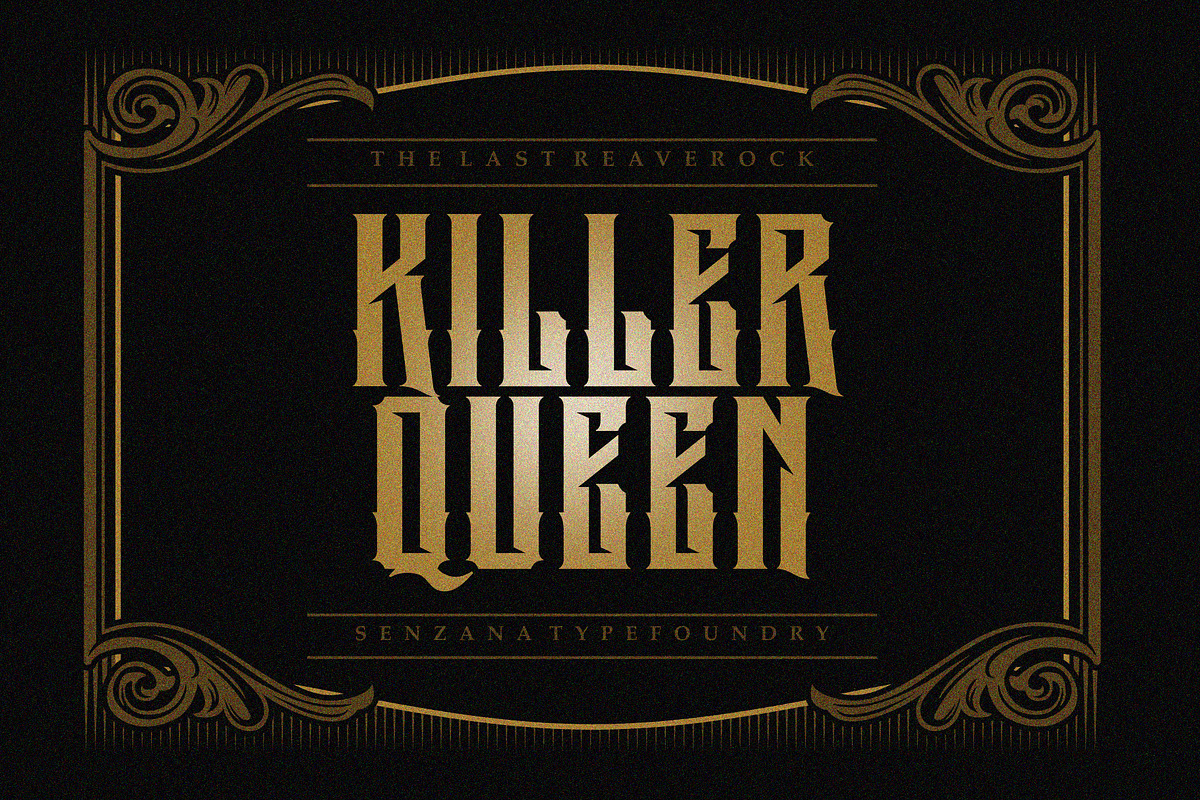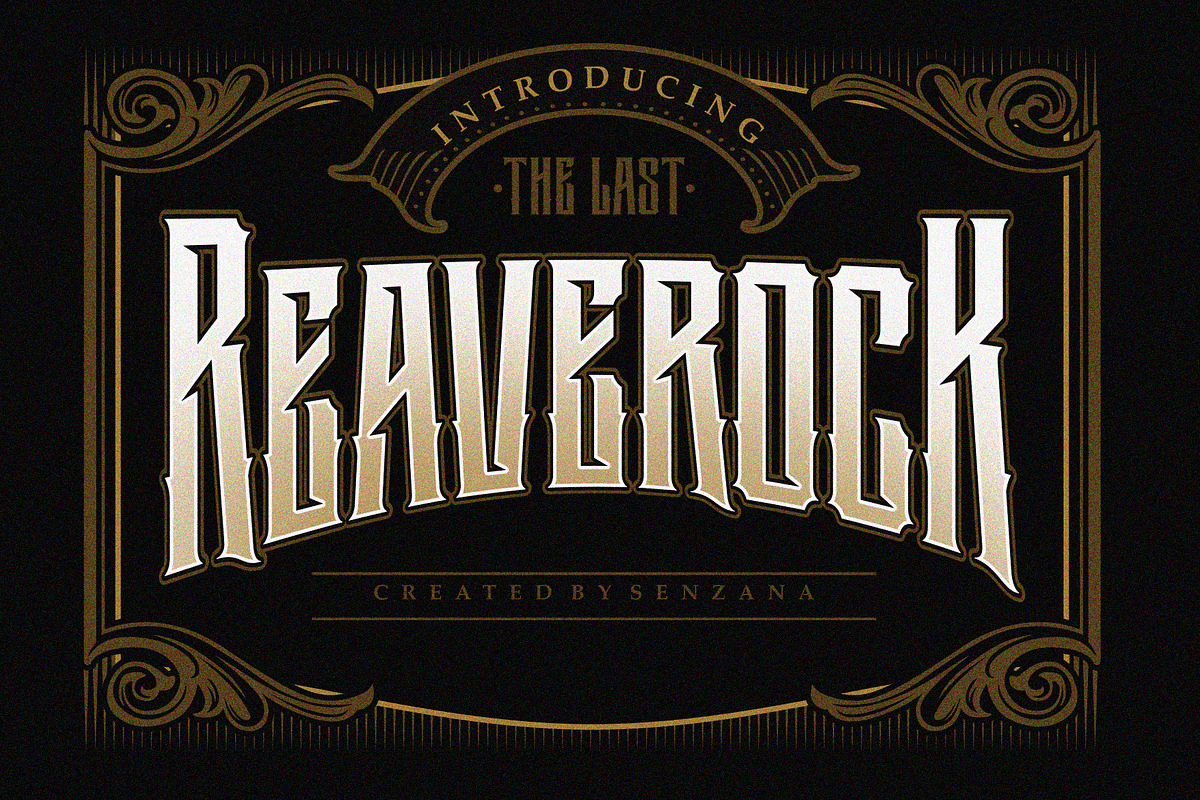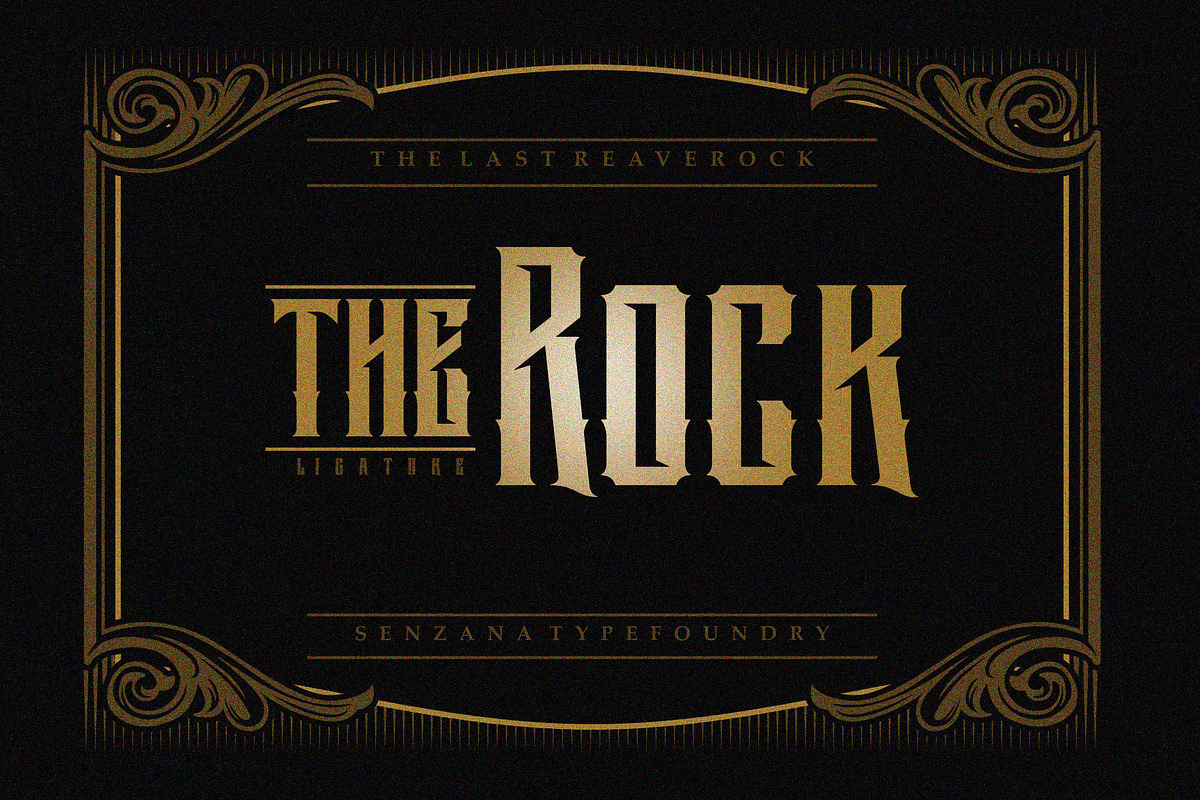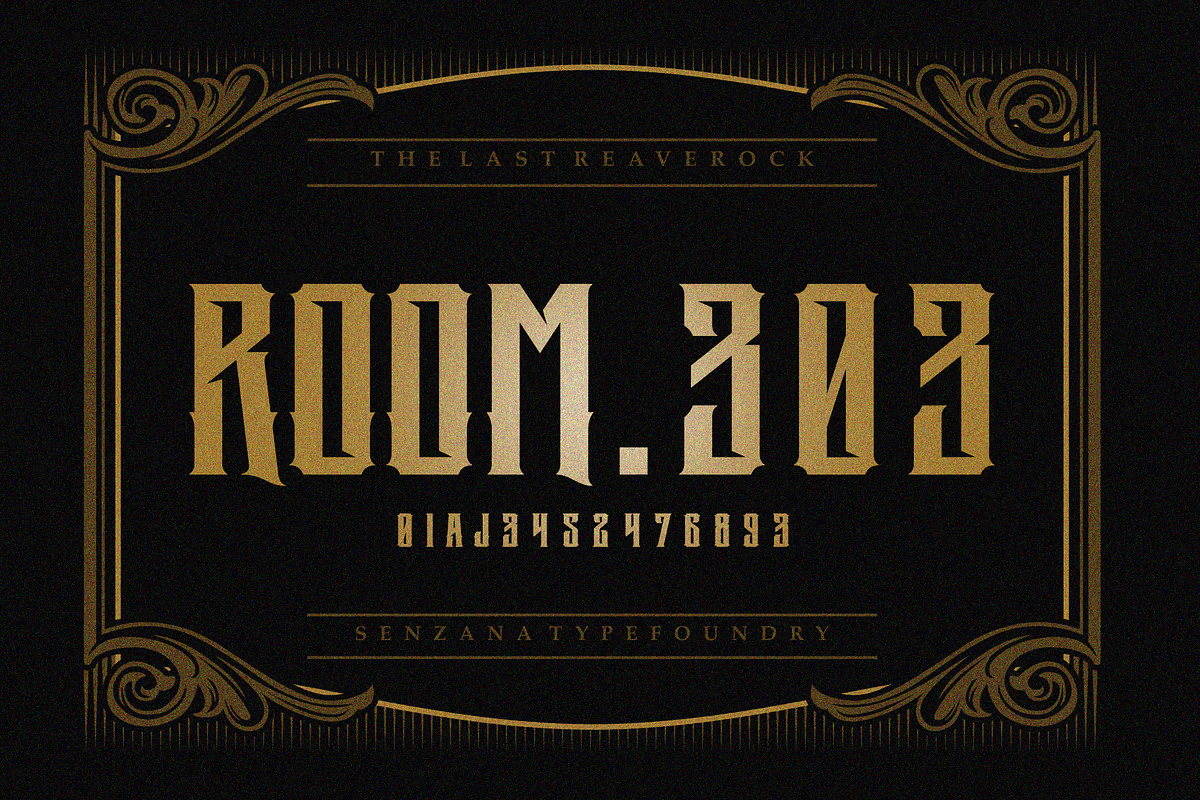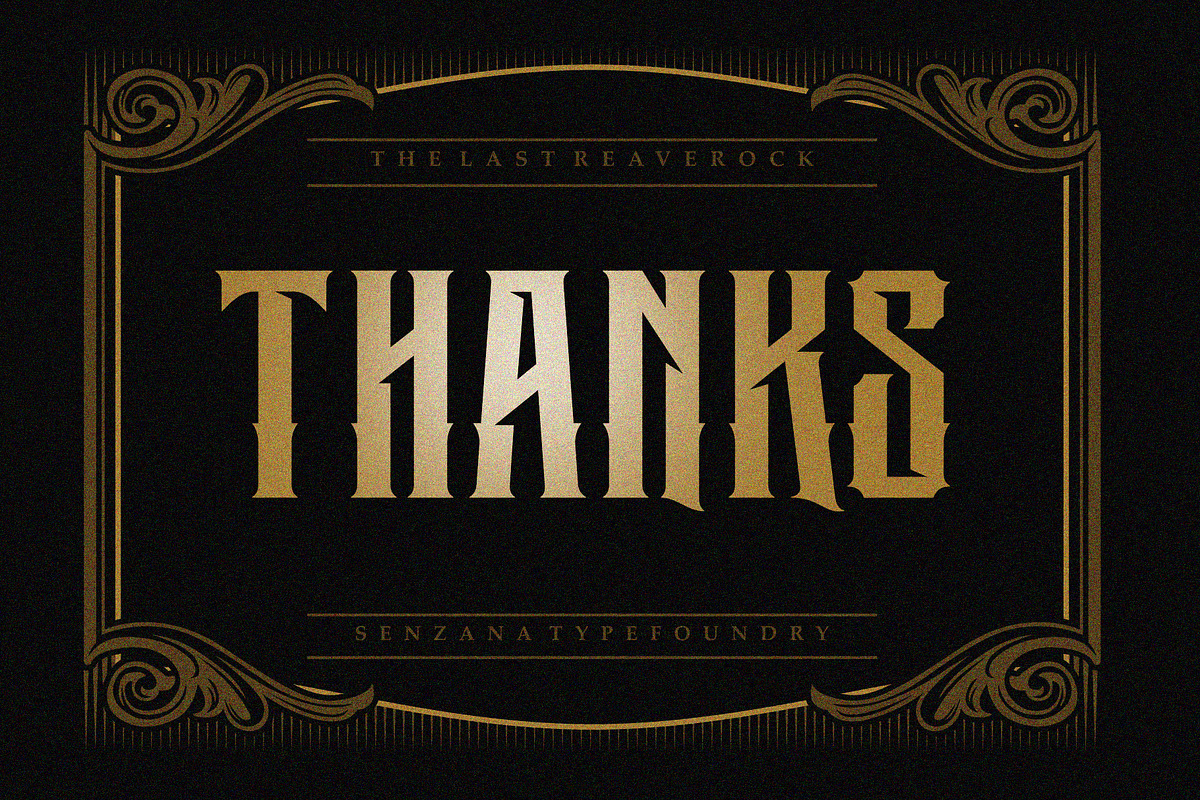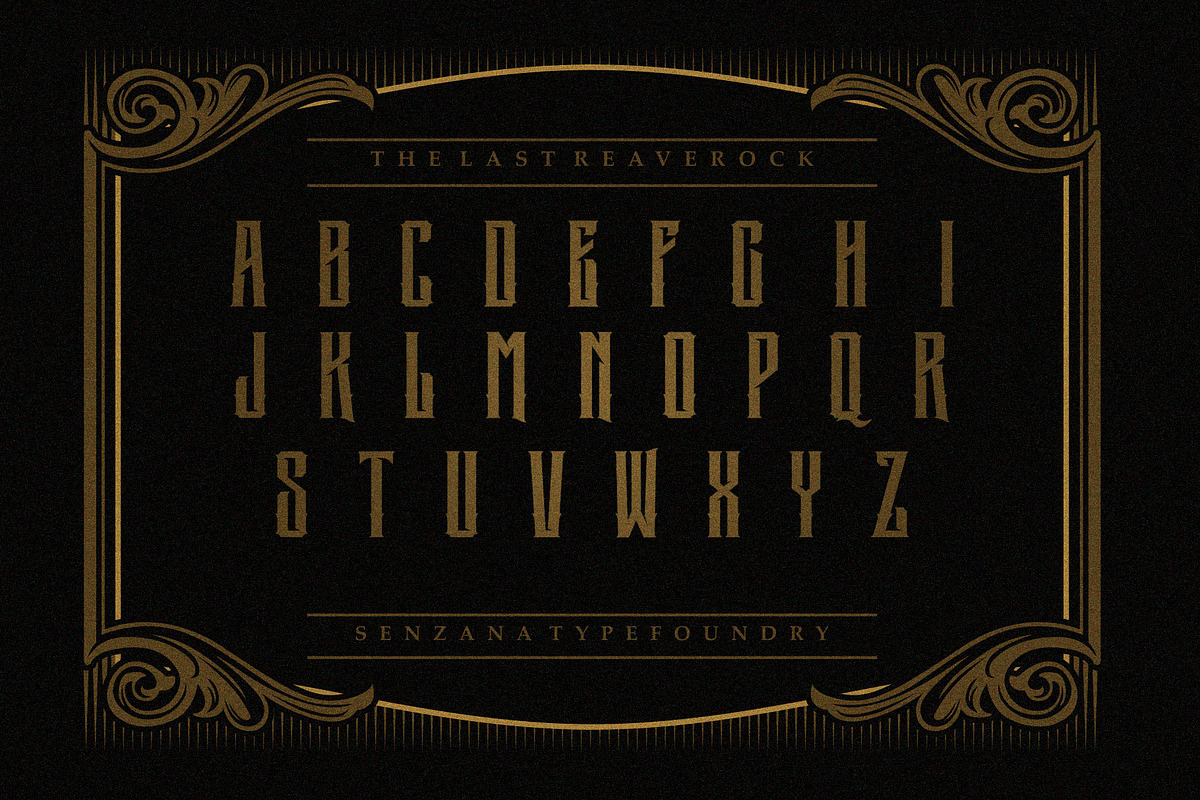
THE LAST REAVEROCK
on this occasion I would like to introduce a font with the name "THE LAST REAVEROCK", this is an old font when I joined the studio "Arthytype", but the font has a different quality and better. will be perfect for the band logo, or the tagline of your t shirt design.